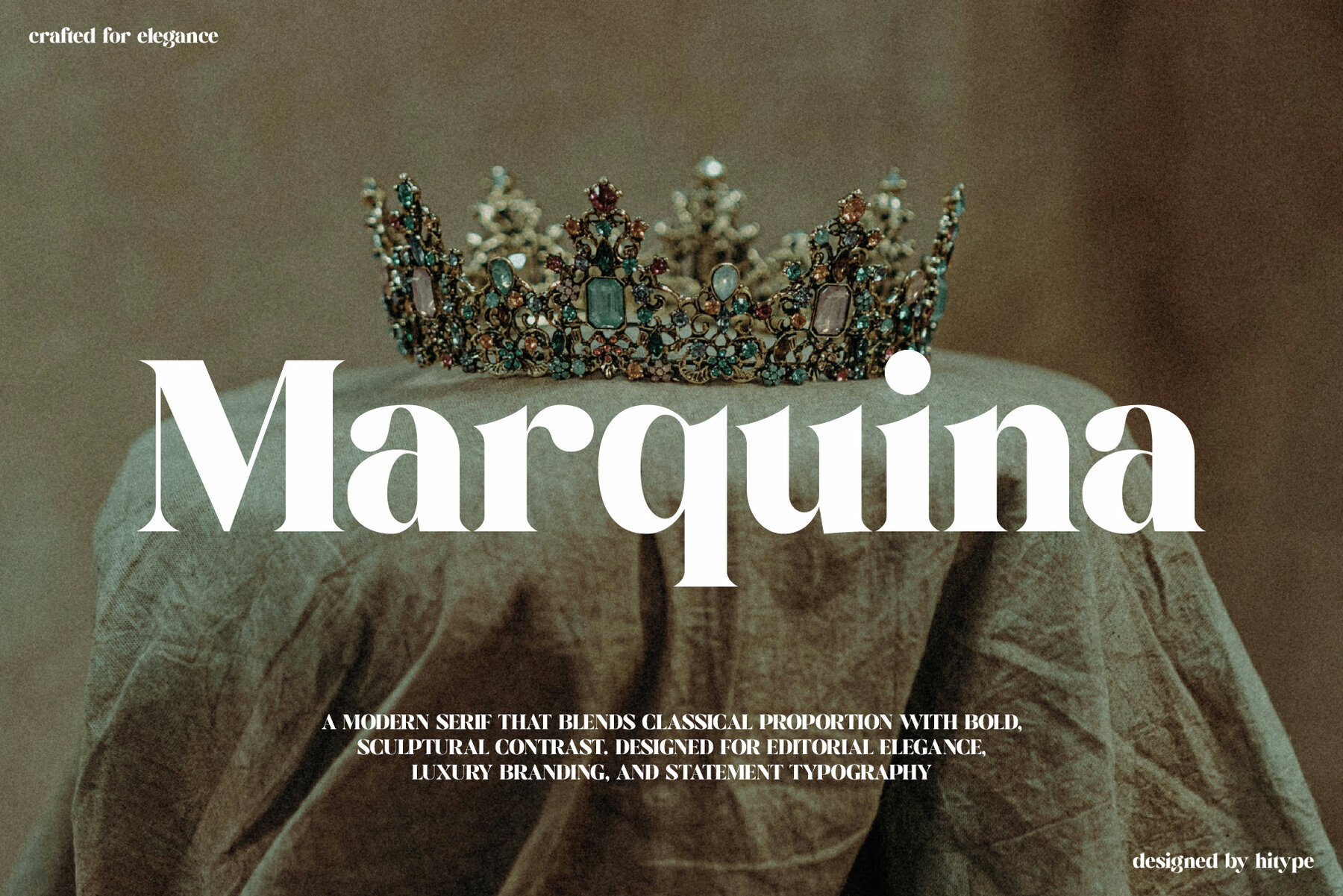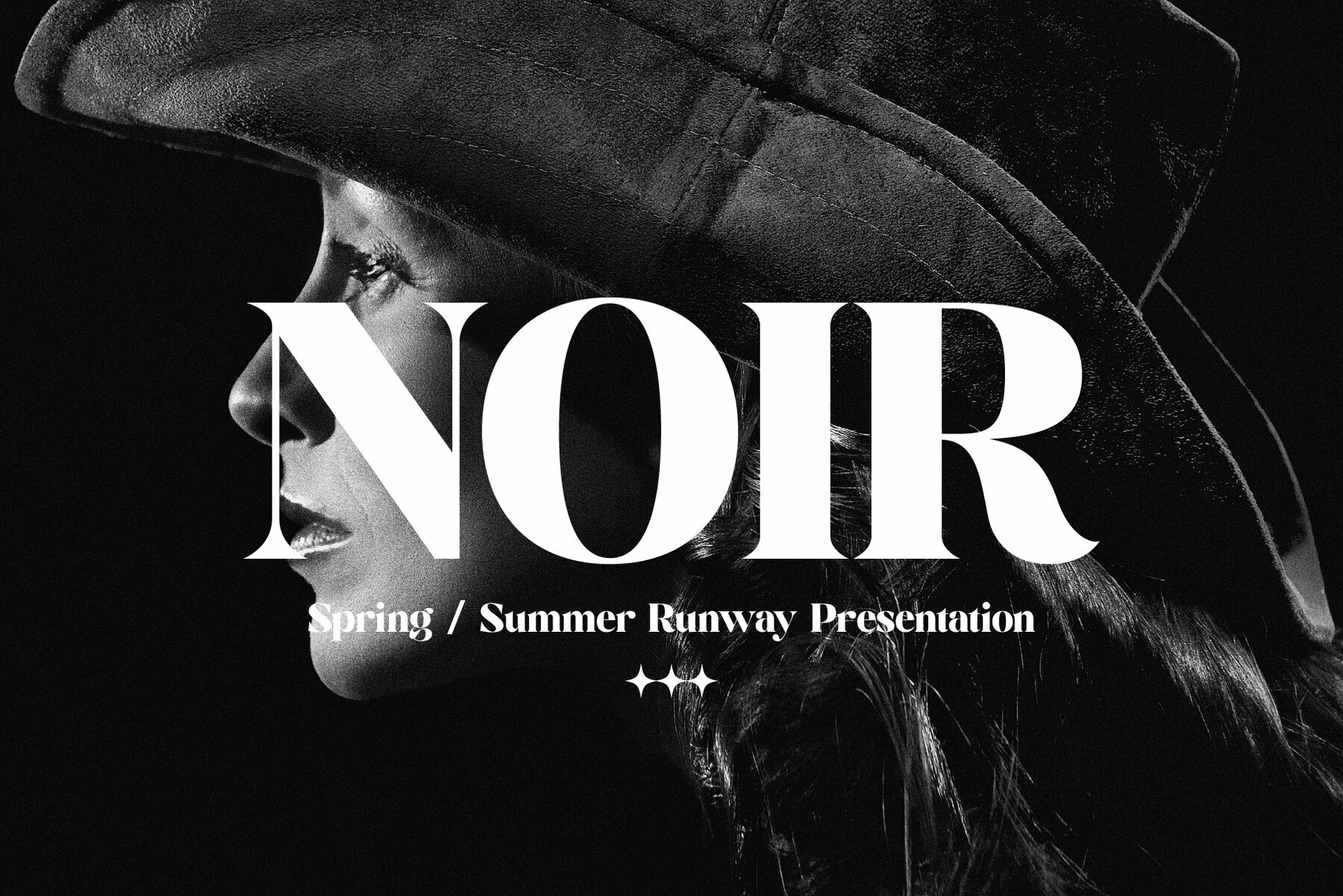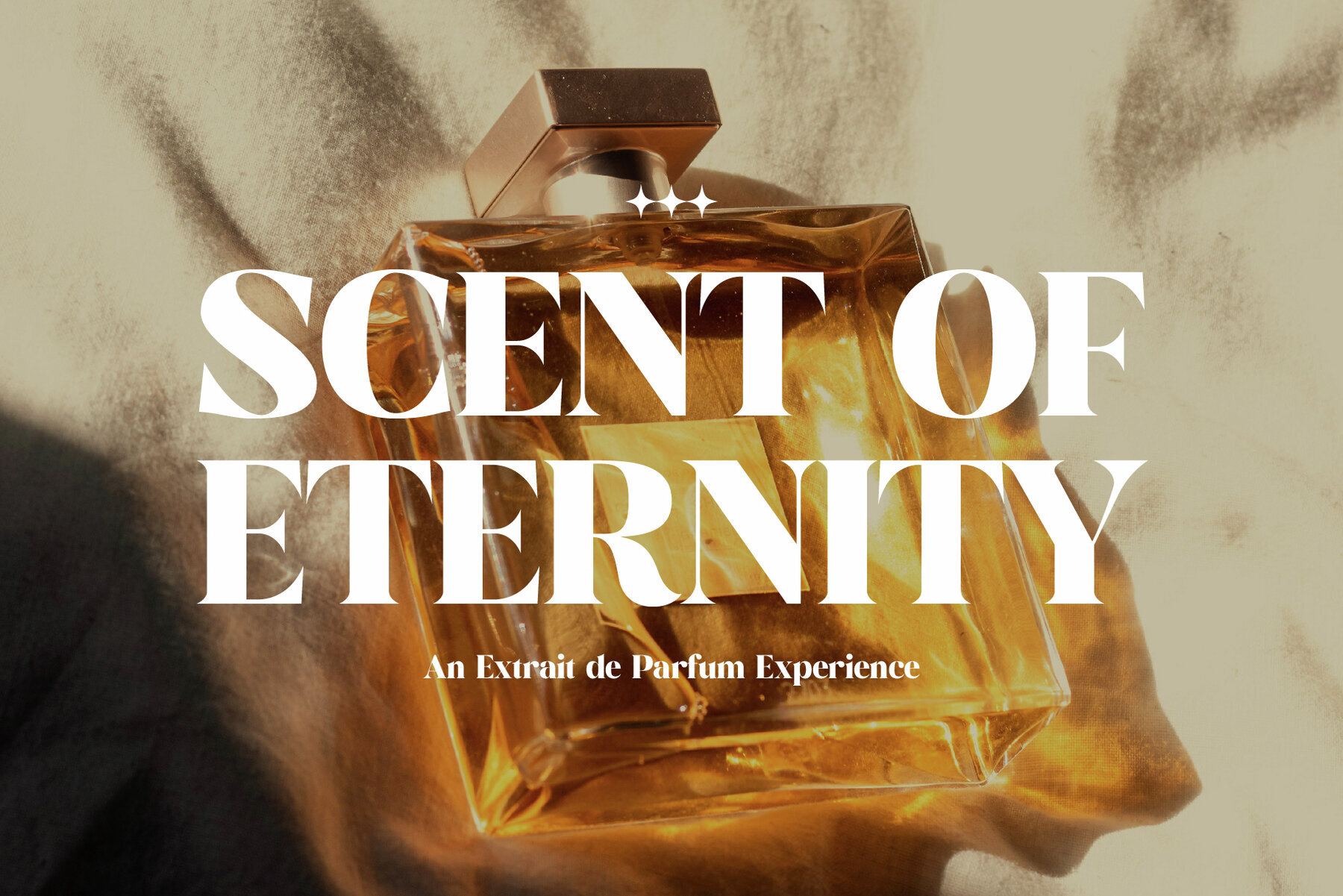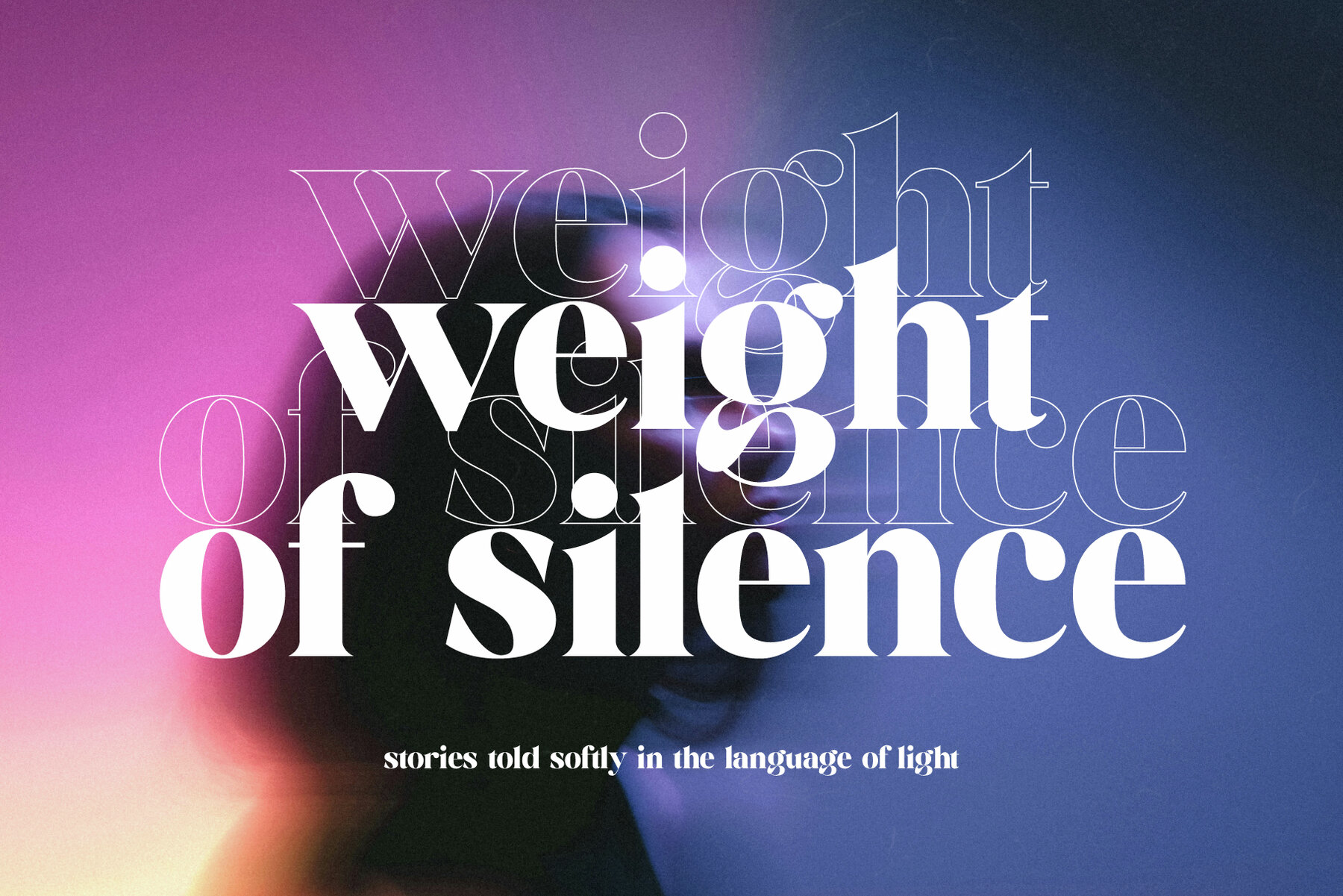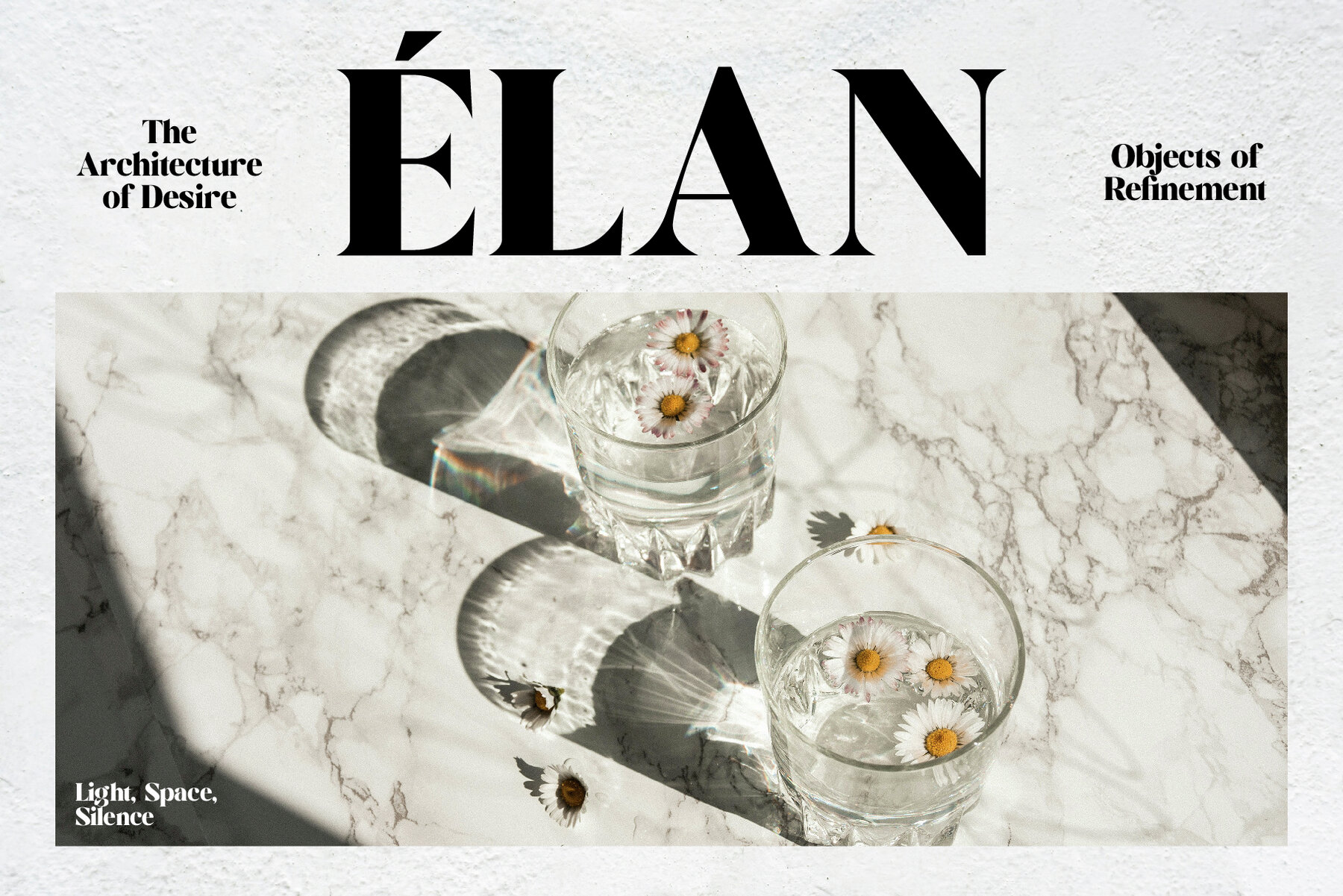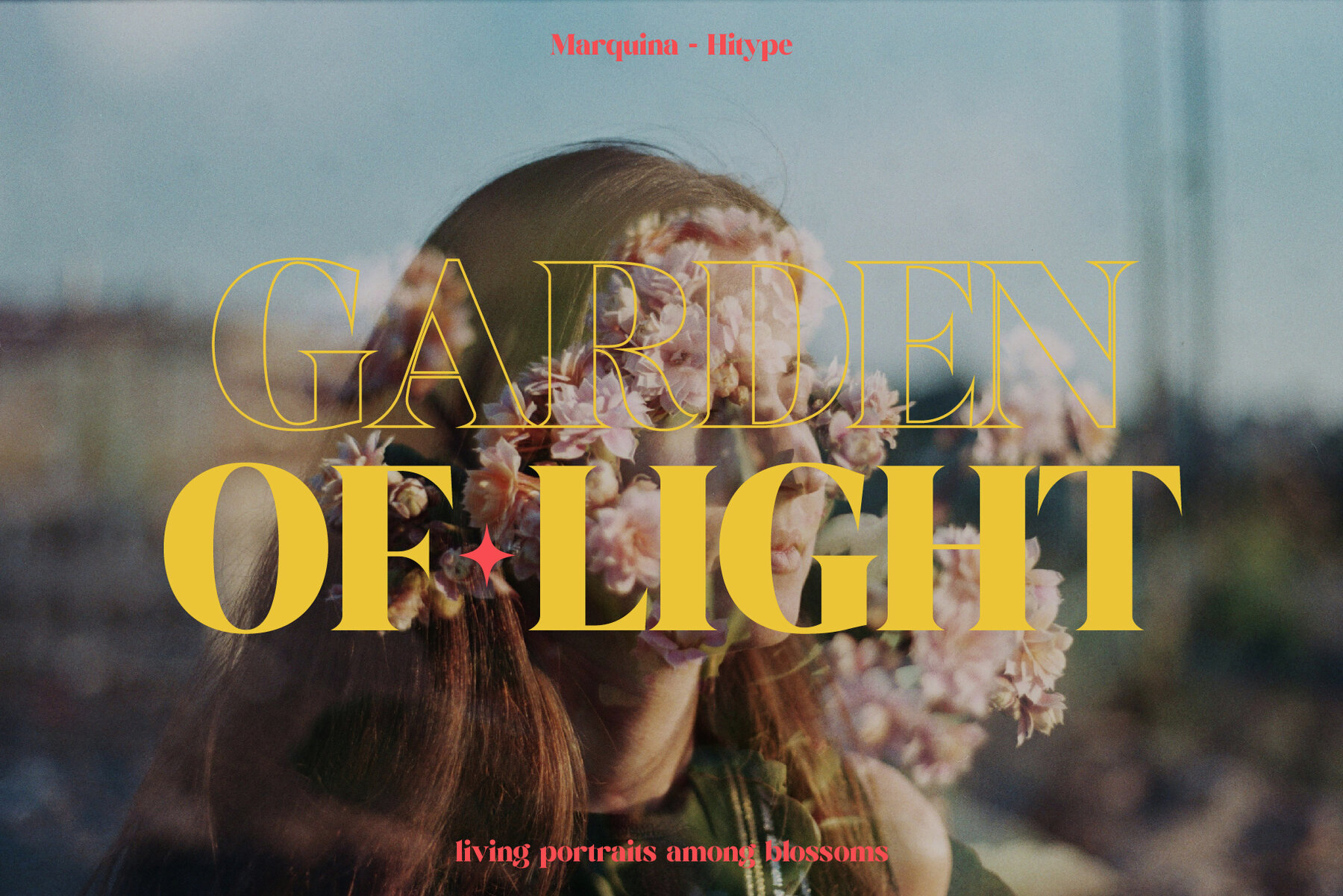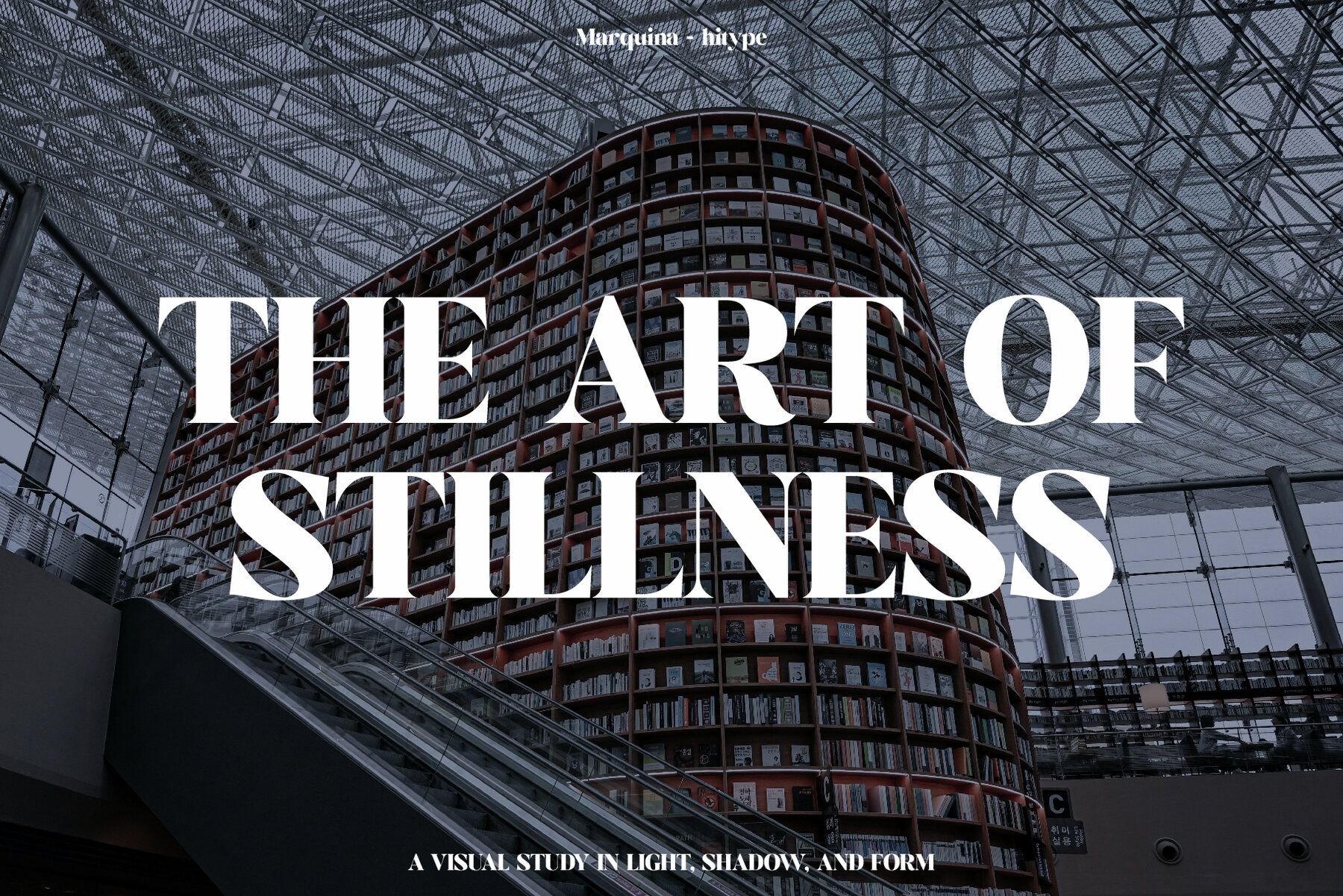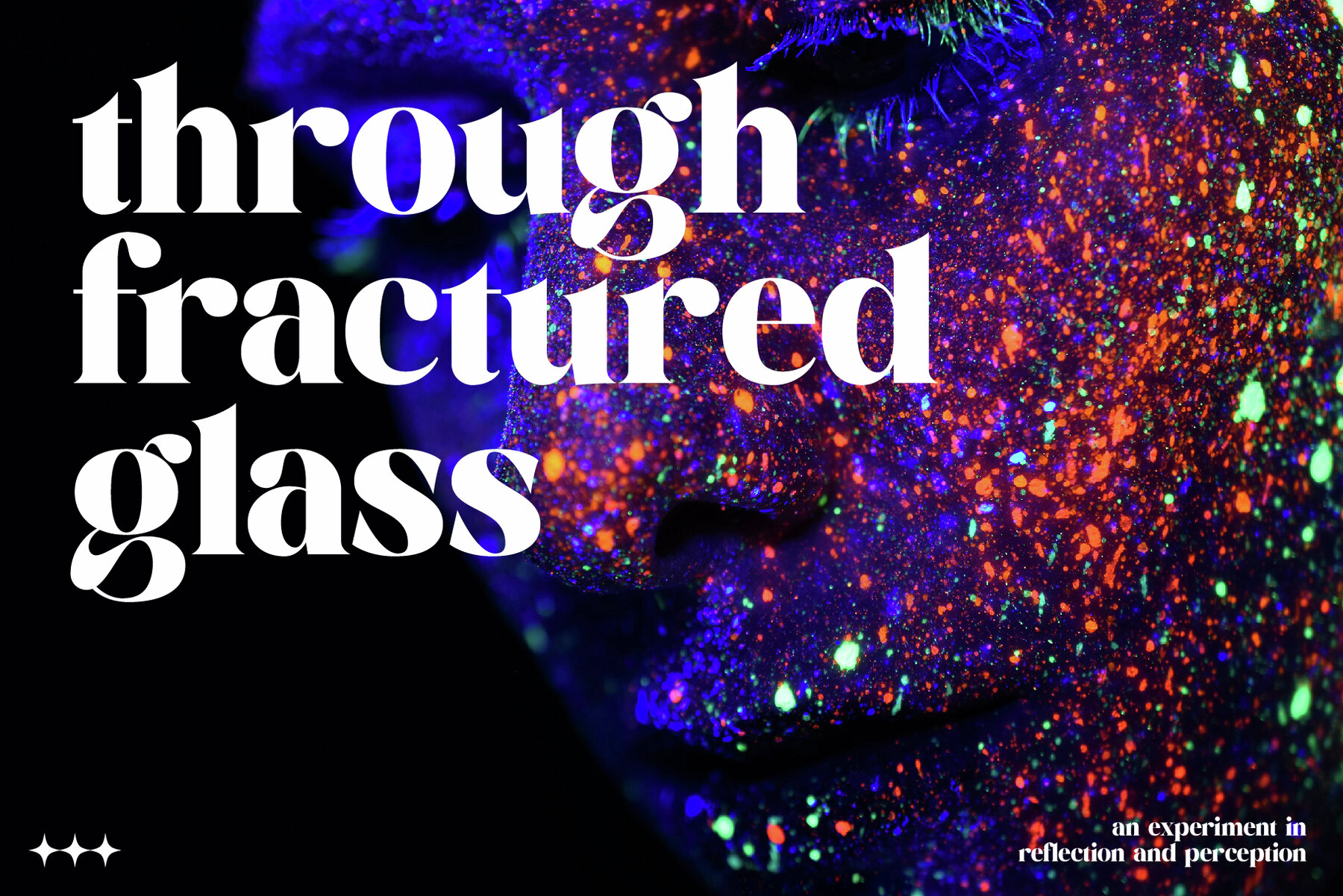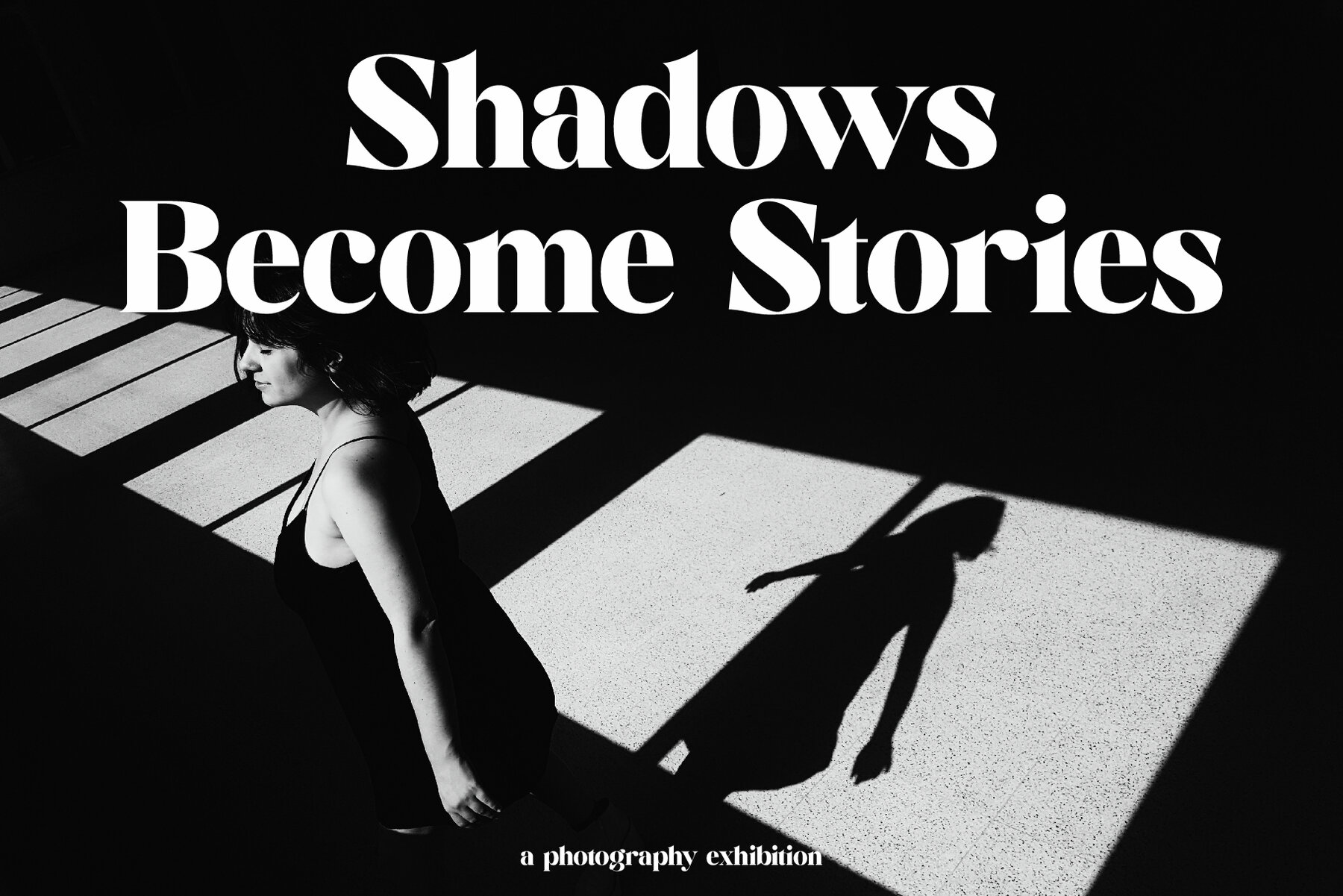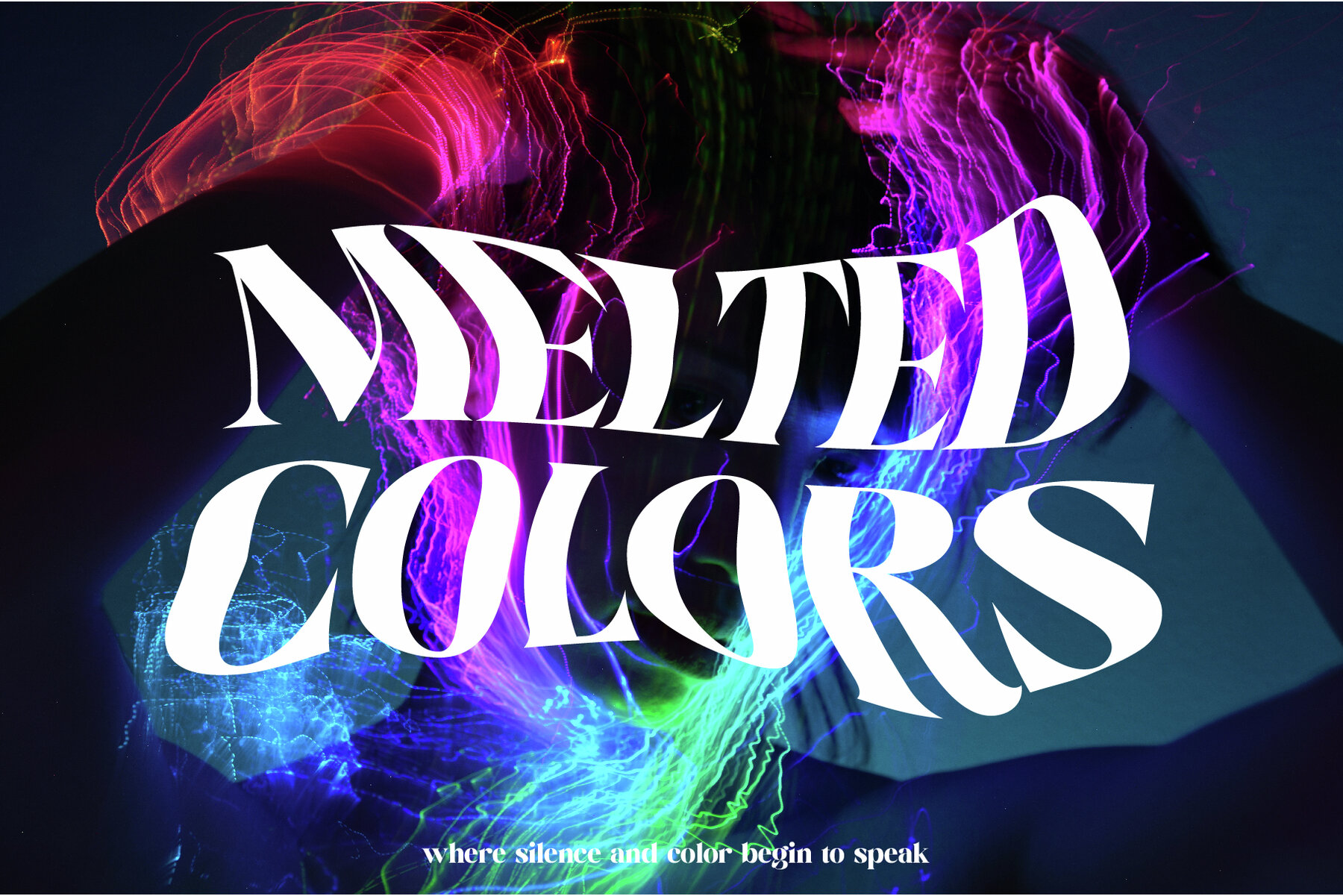
Marquina Font
Marquina
Marquina is a bold, high-contrast serif typeface designed for timeless sophistication and modern luxury. Each curve and sharp cut embodies the elegance of haute couture magazines and premium branding. With sculpted strokes and distinctive vertical contrast, Marquina introduces confidence and refined artistry to every design. Perfect for logos, fashion headlines, perfume packaging, lifestyle magazines, posters, and digital branding, Marquina blends classical serif proportions with a daring, contemporary twist. Its commanding presence transforms every word into a statement, ideal for designers seeking to convey power, exclusivity, and cinematic style. Marquina offers creative freedom for global projects, whether paired with minimalist layouts or rich imagery. This font stands as a true symbol of taste and strength, providing your project with the luxury editorial edge it deserves.Marquina Typeface